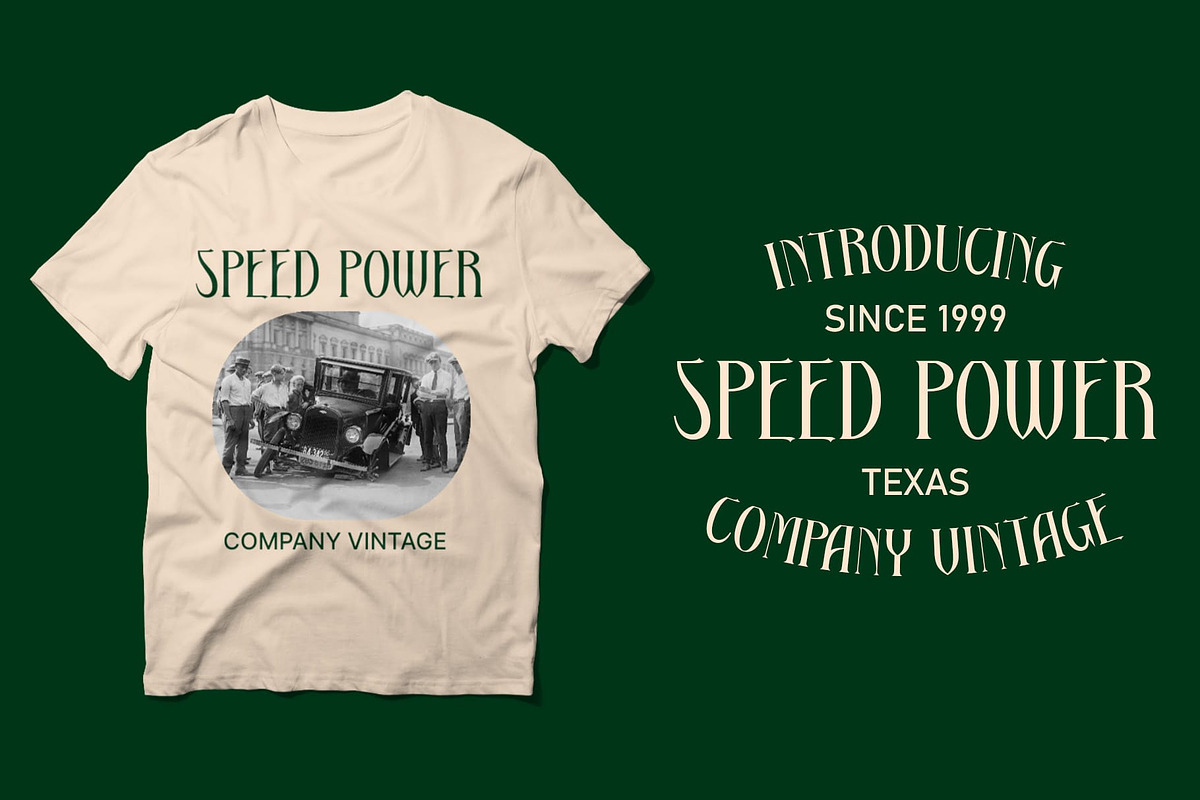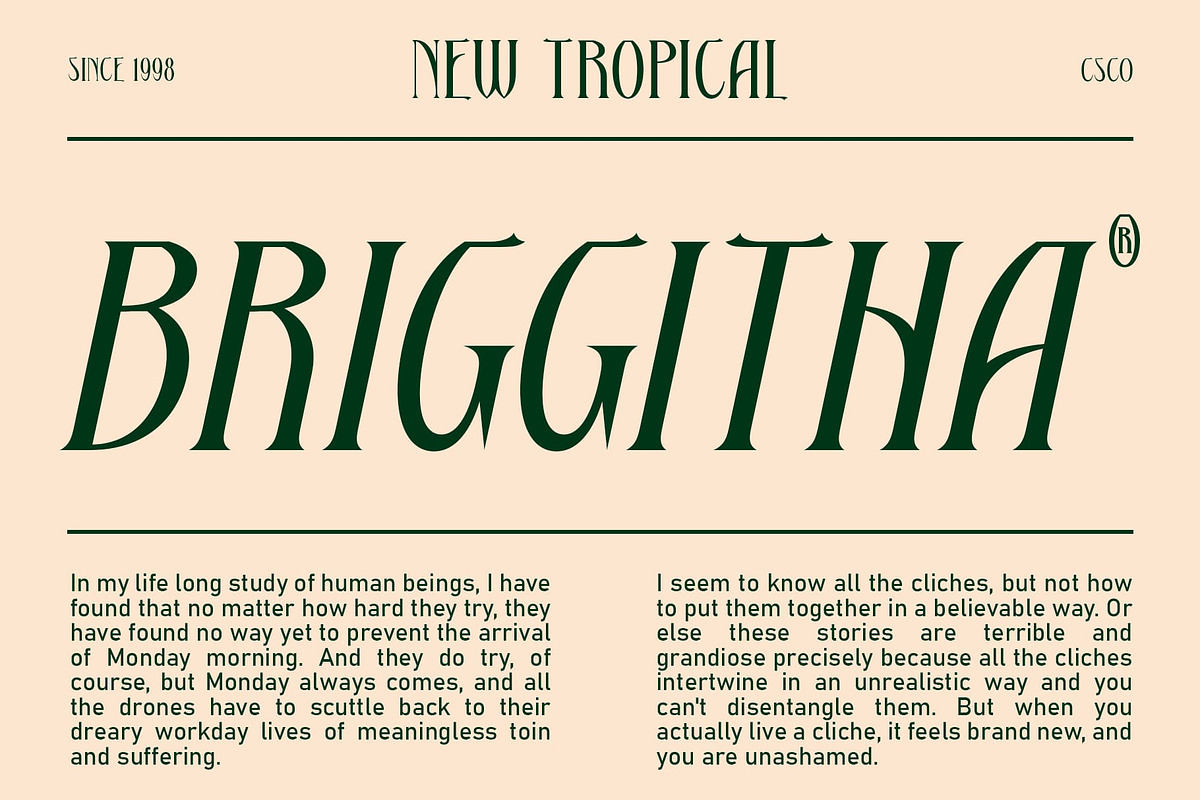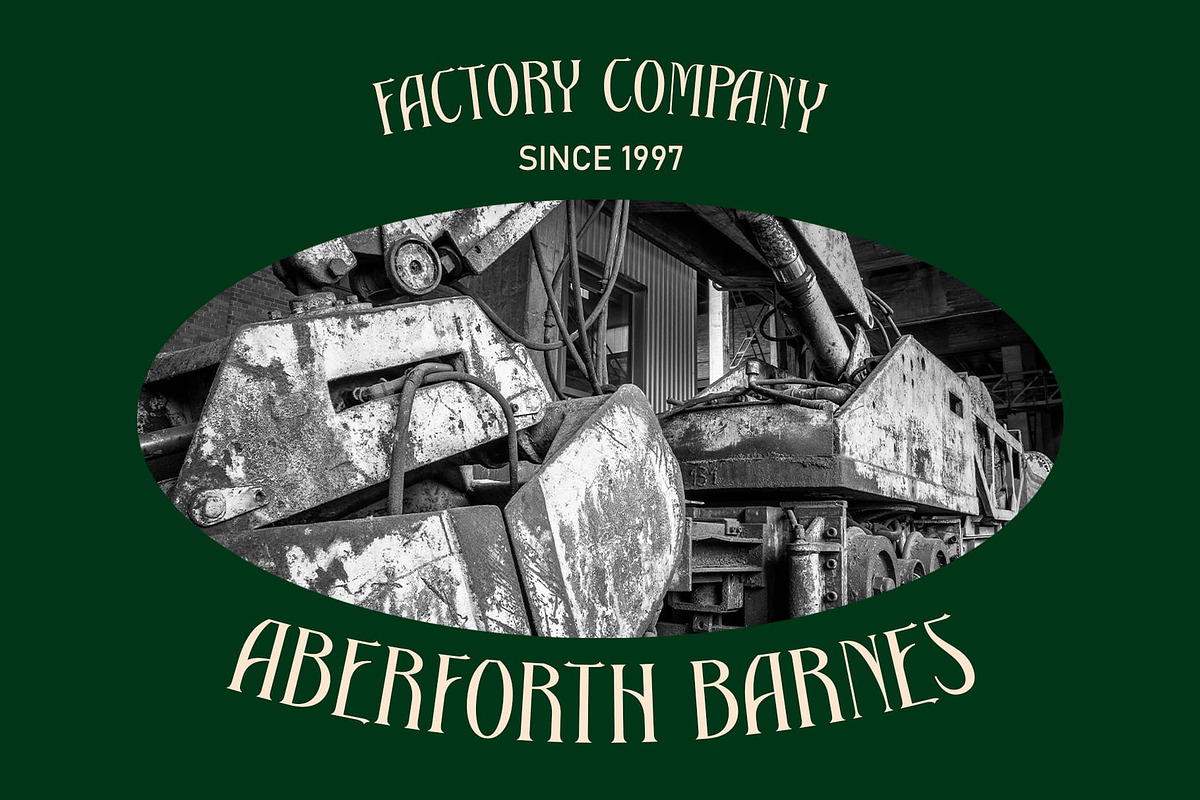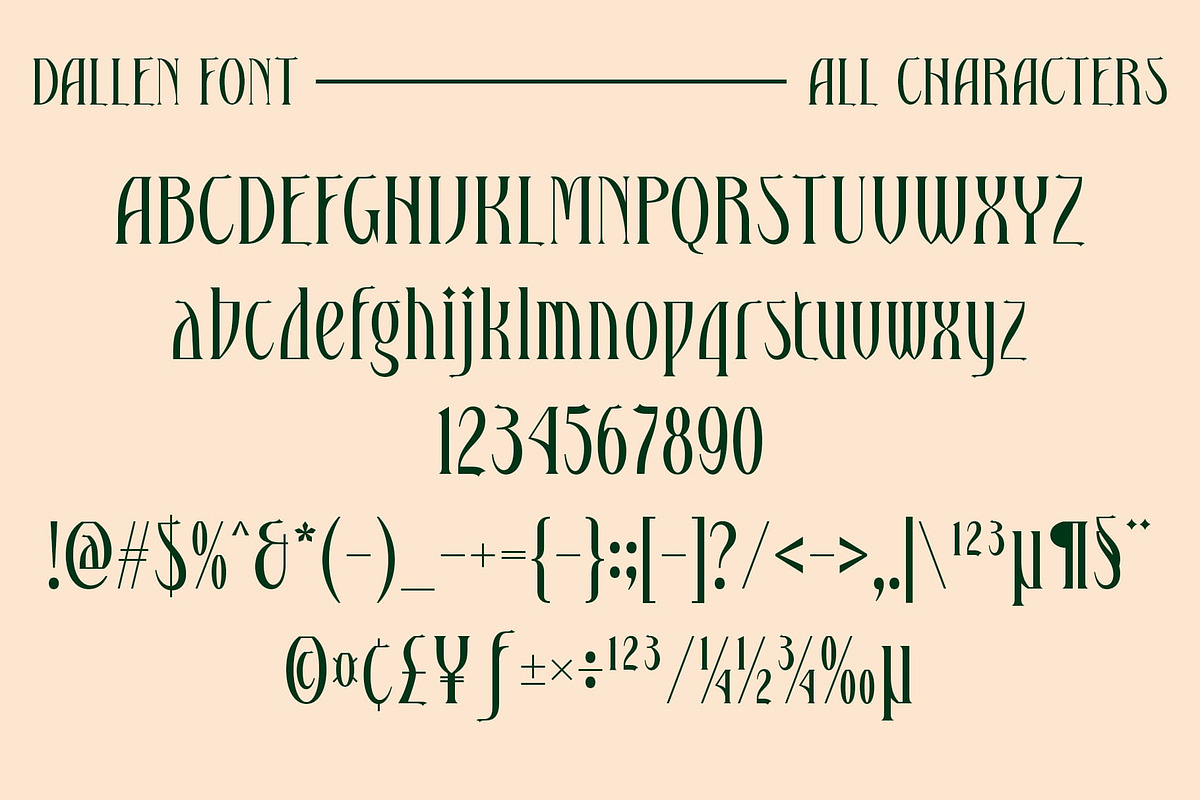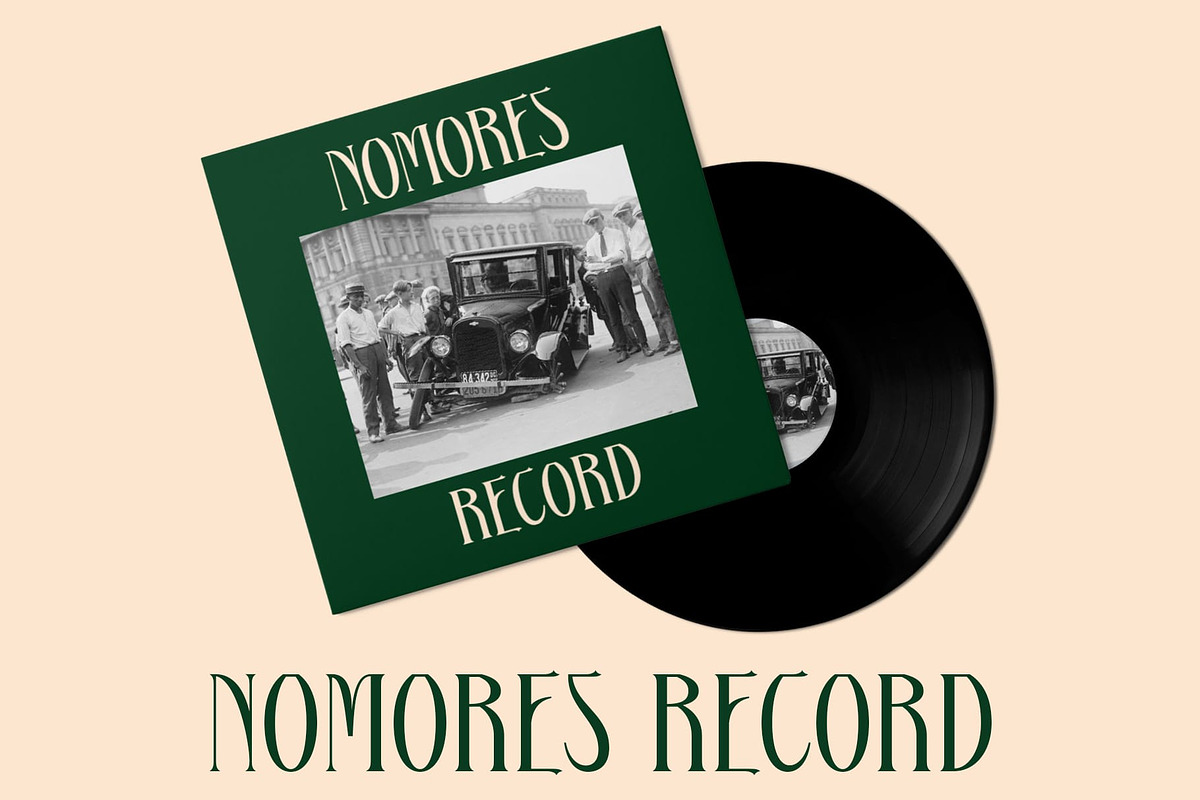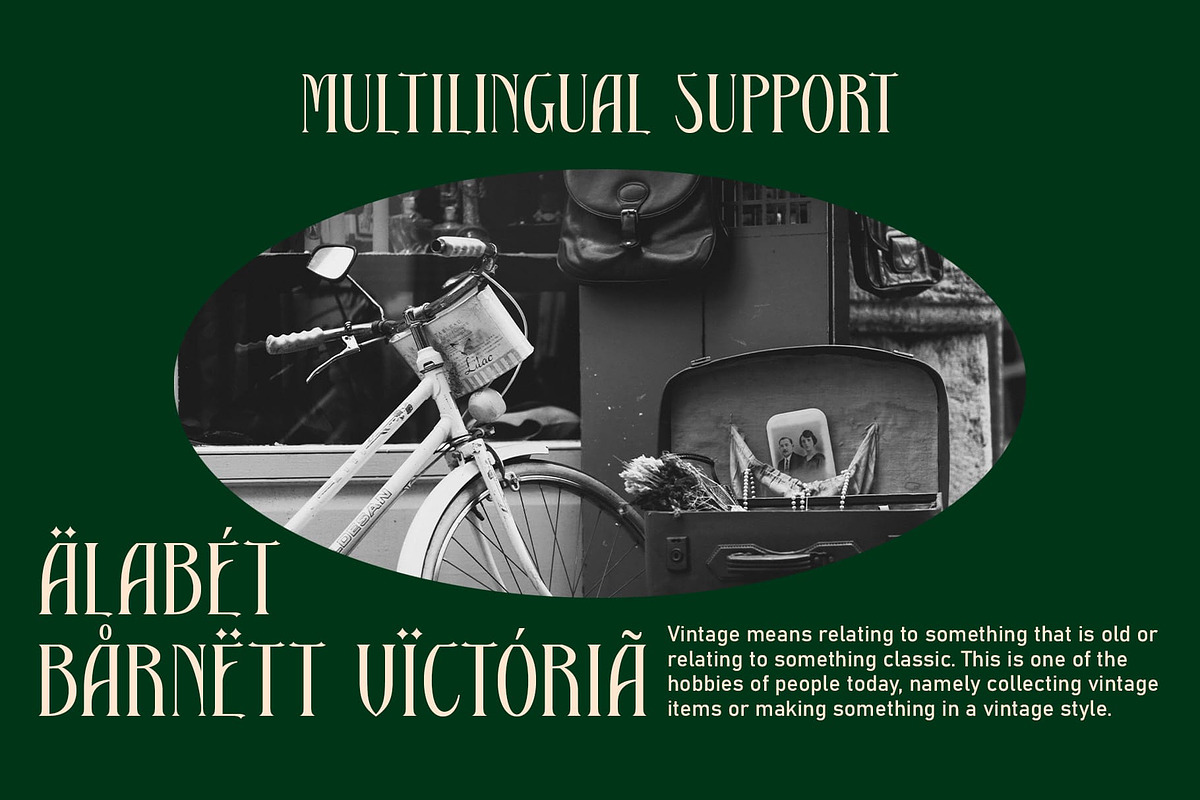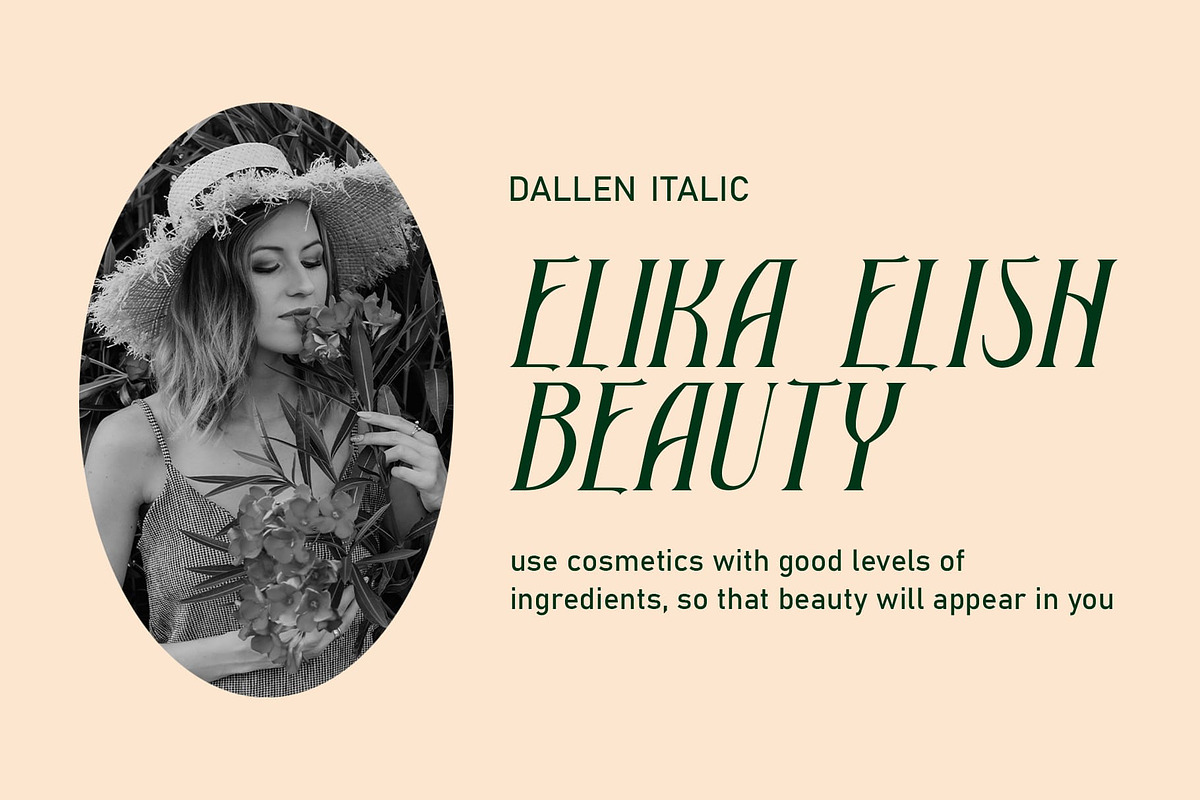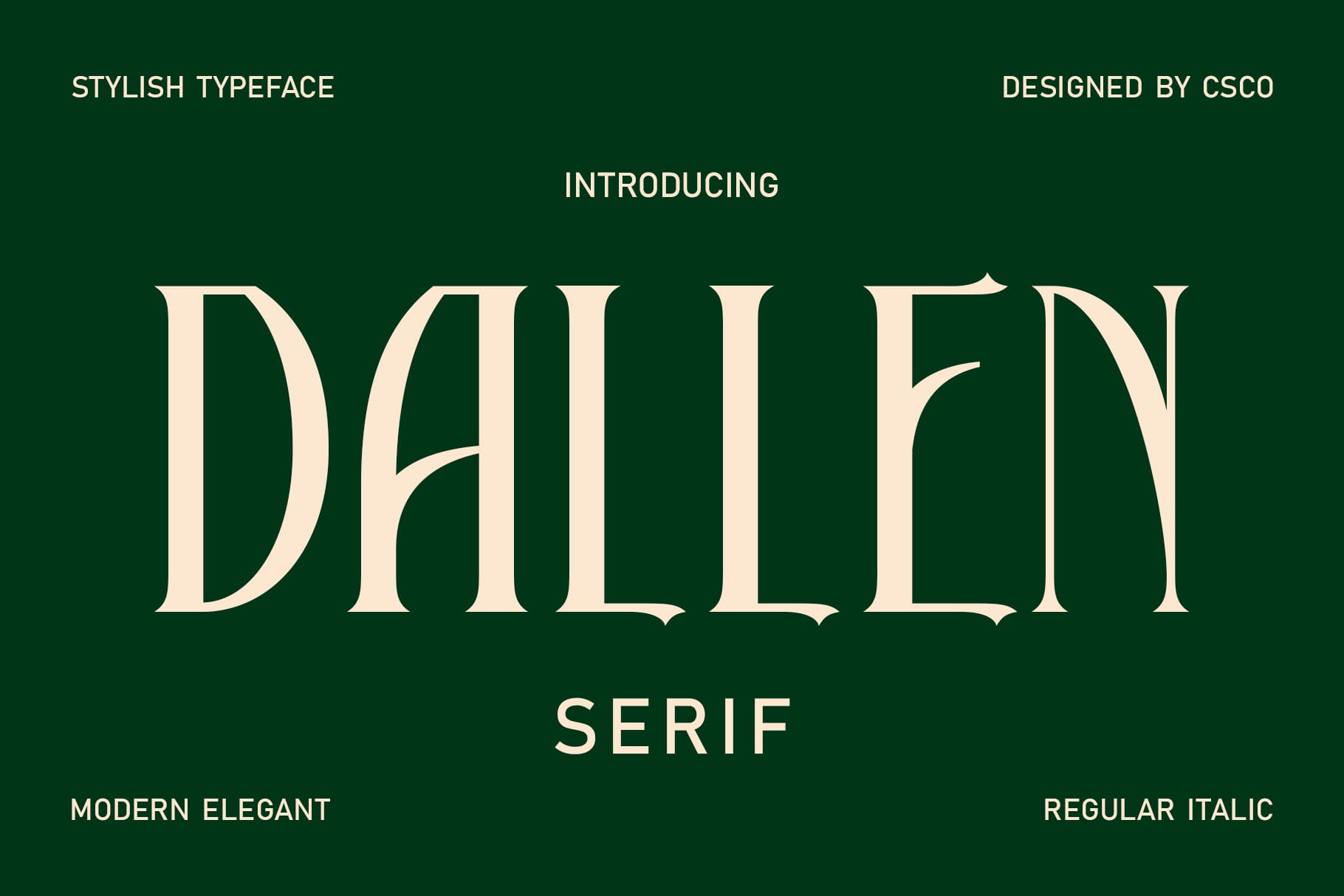
Dallen – Serif Font
Dallen Font: Making a Statement in Display Typography
Striking Height and Bold Design Dallen’s tall and bold serif design commands attention with its striking appearance. Each character stands tall, making a bold statement in any display setting.
Designed for Display Needs Crafted specifically for display purposes, Dallen excels in grabbing the viewer’s attention. Its tall stature and eye-catching design ensure that your message is conveyed with maximum impact.
Versatility in Application While ideal for display, Dallen offers versatility in its application. Whether used in branding, posters, or headers, its bold and prominent appearance adds flair to any design project.
Stand Out with Dallen In summary, Dallen is the go-to choice for designers seeking a serif font that demands attention. With its tall shape and striking presence, it ensures that your display projects stand out from the crowd. Step into the world of Dallen and make your message heard loud and clear.
- Dallen Regular
- Dallen Italic